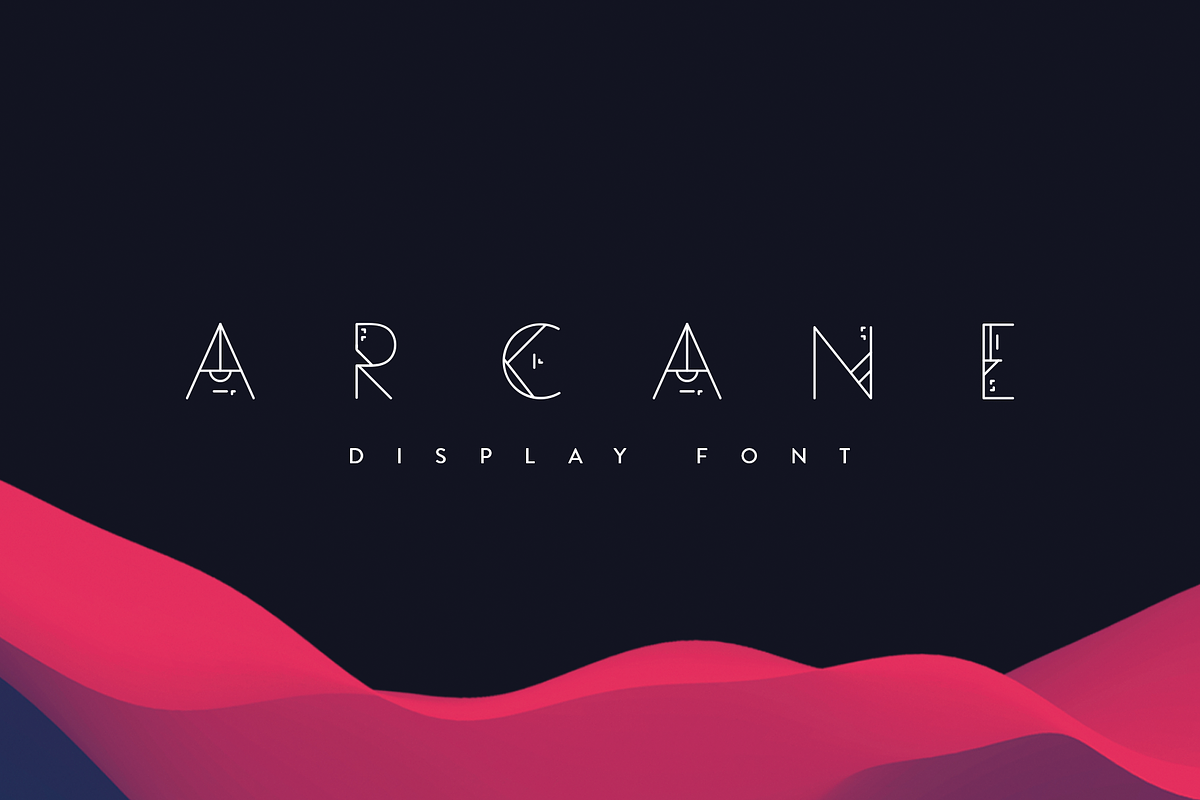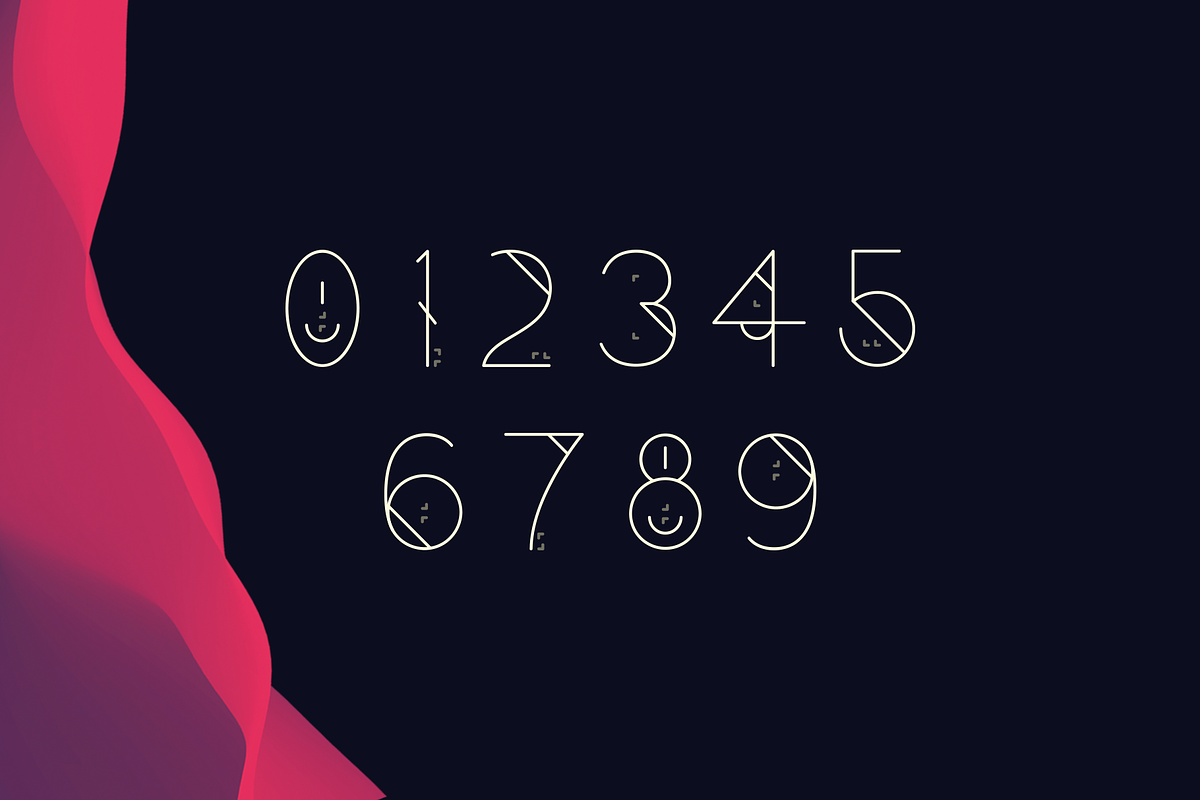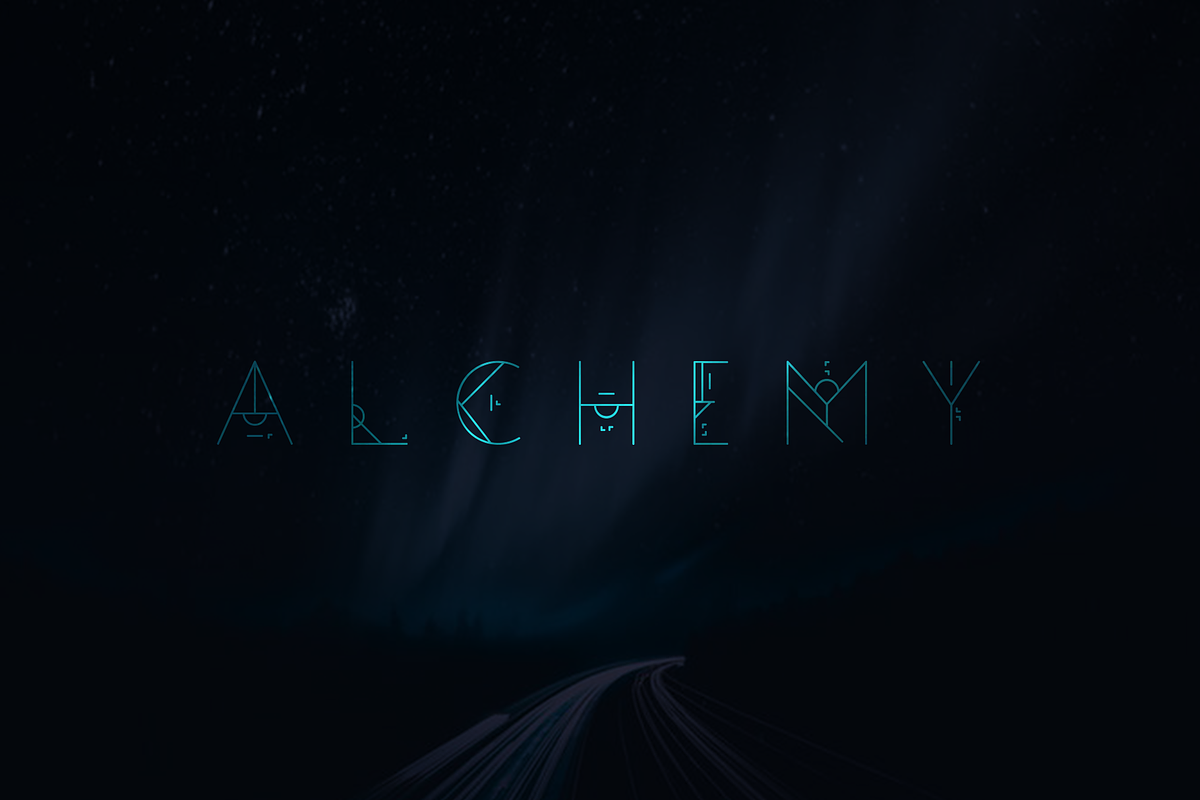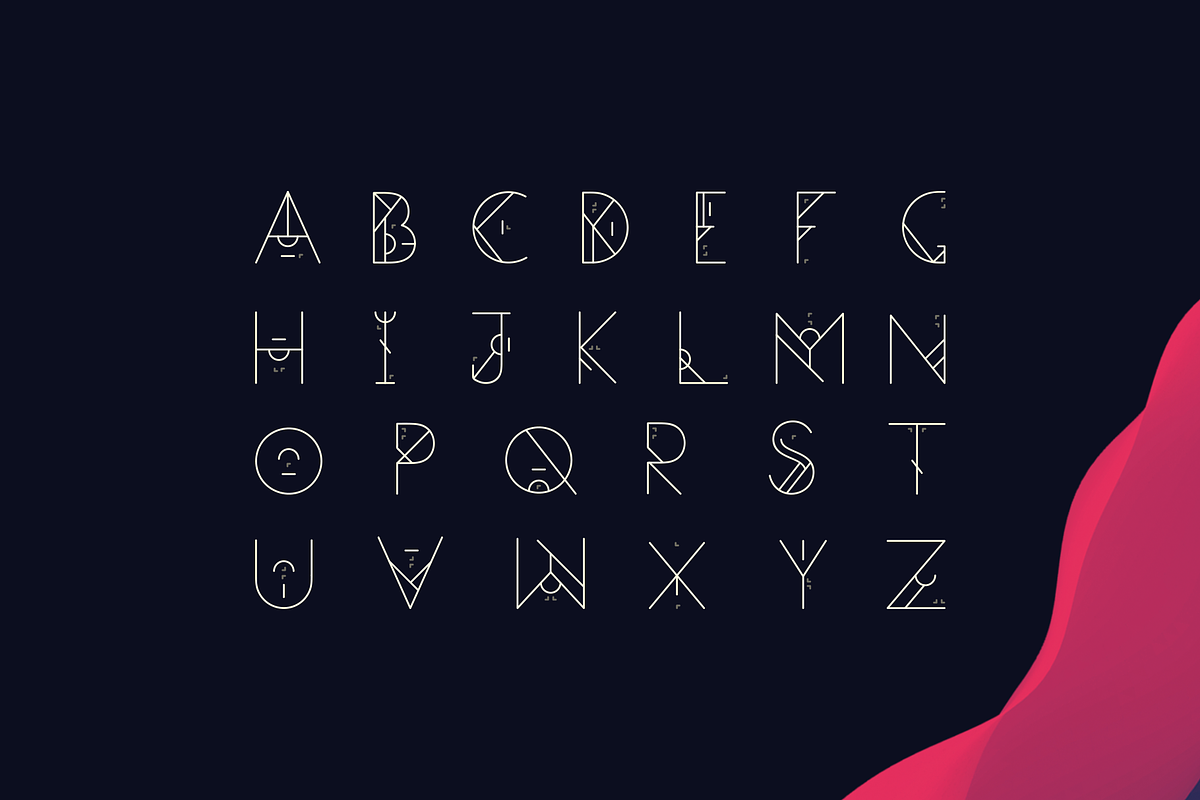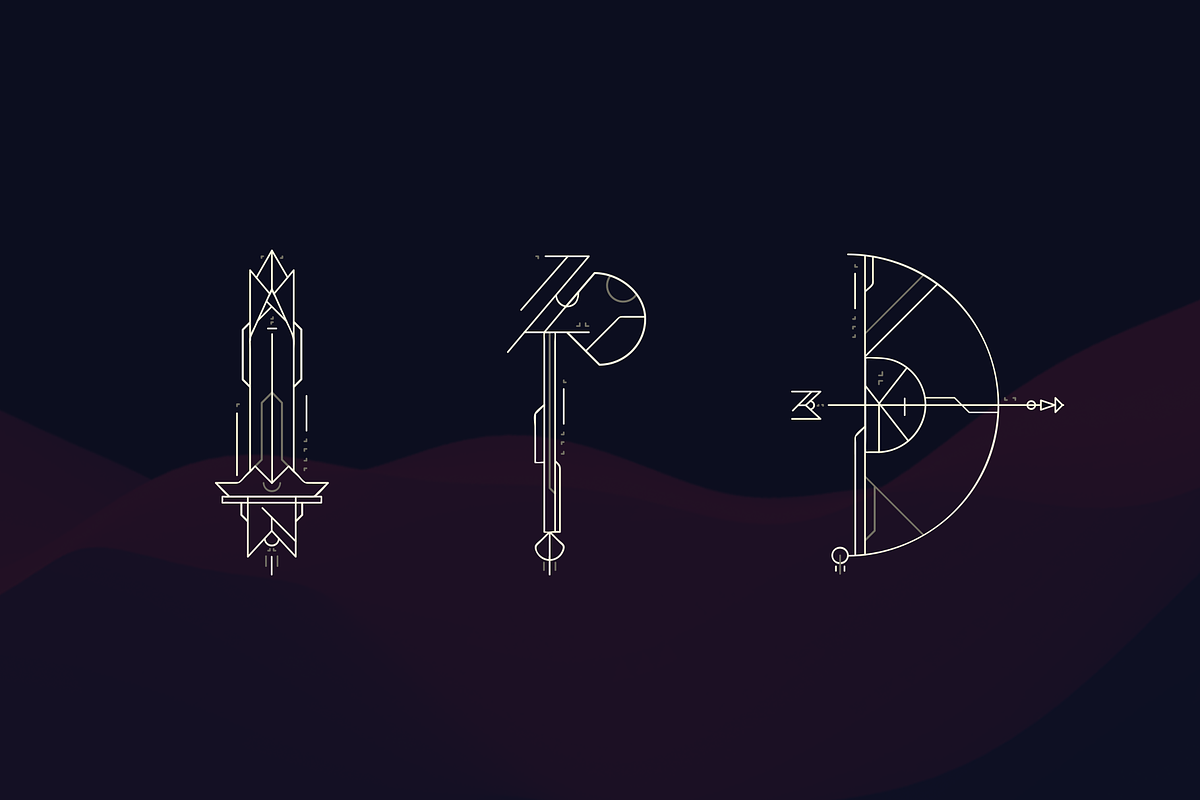
Arcane | Display Font
Arcane is an alchemic geometric typeface inspired by the former 'Illusive' typeface.
It has a strong vertical emphasis, with a solid display. Its stylistic elements, unique shape and proportions lends an archaic and mystical feel — A mix of medieval and modern.
Part of the Geometrica series; Arcane is most suitable as a decorative display font.